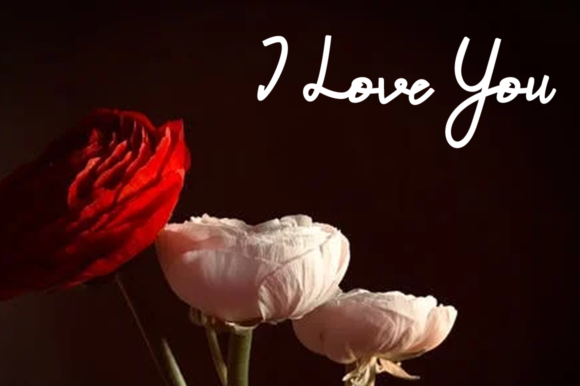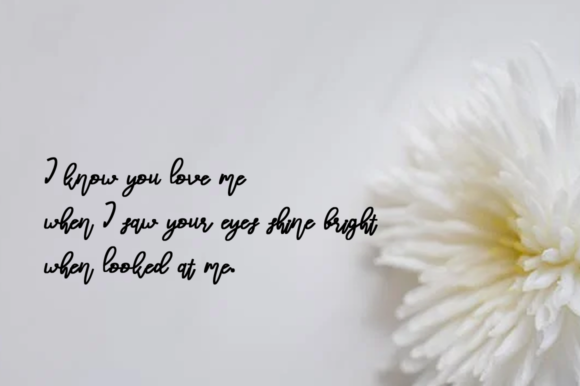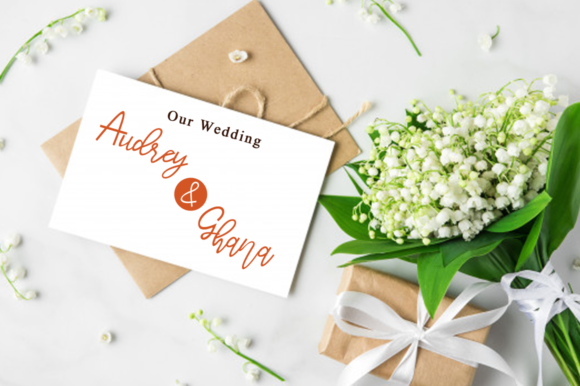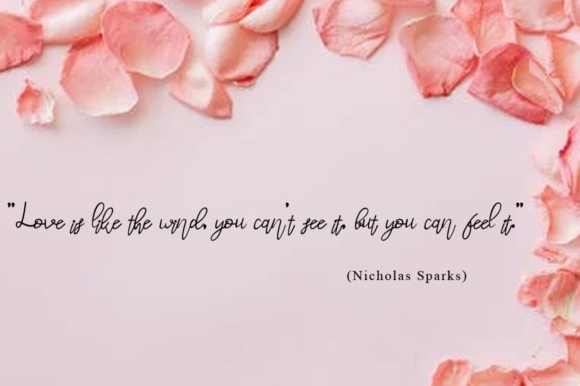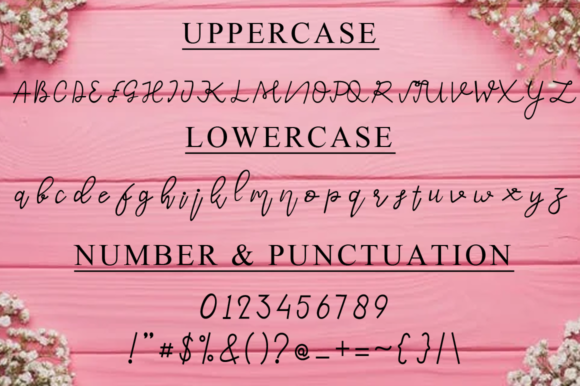
Introduction to Narita Font
As a designer, there’s nothing quite like the rush of inspiration that hits when you stumble upon the perfect font for your project. You’re brainstorming ideas, flipping through design inspiration boards, and suddenly, you land on a beautiful handwritten font that brings your concept to life. For many creatives, this moment is a game-changer, and that’s exactly what happened when they discovered the Narita Font.
This elegant and flowing handwritten font has captured the hearts of designers around the world, and for good reason. With its delicate and well-balanced characters, Narita Font is a design resource that’s versatile and adaptable to a wide range of creative projects. Whether you’re working on a free download, a high-quality print ad, or a digital design with a transparent background, Narita Font is a valuable asset that can elevate your work to the next level.
Narita Font
- Perfect for designers seeking a distinctive and modern font to elevate their creative project, whether it’s a logo, poster, or website.
Honest Review: Narita Font
One of the standout features of the Narita Font is its high quality and versatility. The font comes in a range of styles and weights, making it perfect for a variety of design projects. ✨ I particularly appreciate the transparent background option, which makes it easy to use the font on any design element without worrying about a cluttered look.
Here are some of the things that work well for me:
- Range of styles and weights to suit different design needs
- Transparent background option for easy use
- Some users may find the font to be a bit too bold for certain design projects
- The font doesn’t come with a complete character set, which may be a limitation for some users
Overall, I’m really impressed with the Narita Font and would definitely recommend it to anyone looking for a high-quality, free design resource. ⚠️ Just be aware of the limitations mentioned above, and you’ll be all set for a successful design project.
Narita Font
The Narita Font is a high-quality design resource perfect for creative projects. With a transparent background, this font offers endless possibilities for designers and artists.
Tips for Getting the Most Out of Narita Font
Experiment with different font sizes, colors, and combinations to create unique designs. Use the transparent background to layer your designs and add depth.
The Narita Font is perfect for:
- Logos and branding